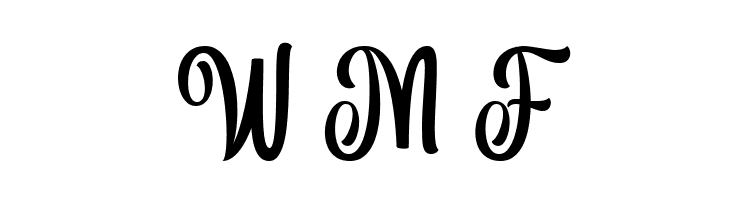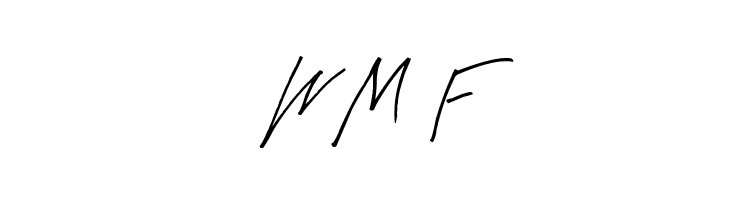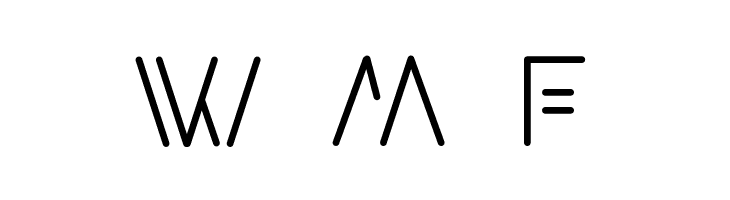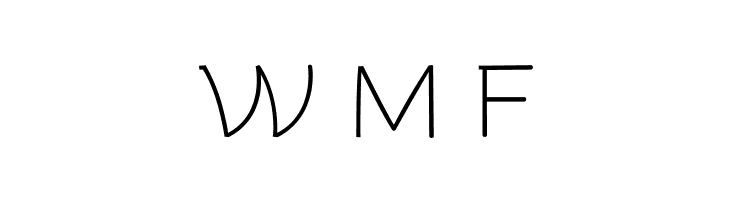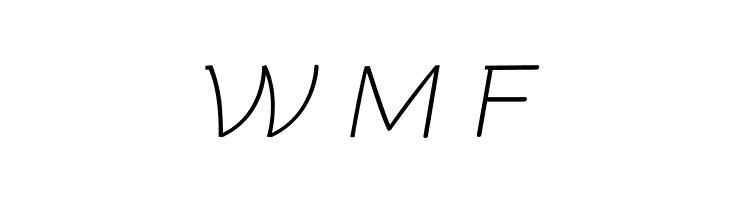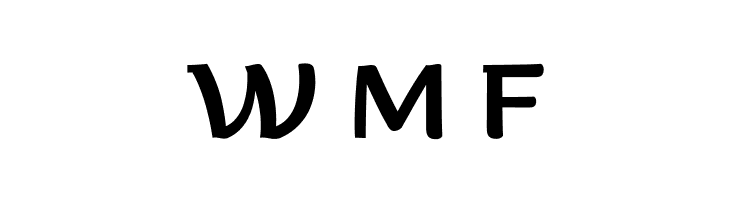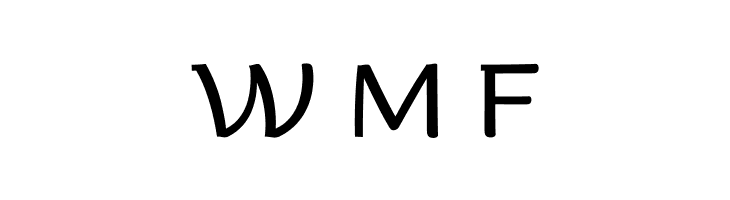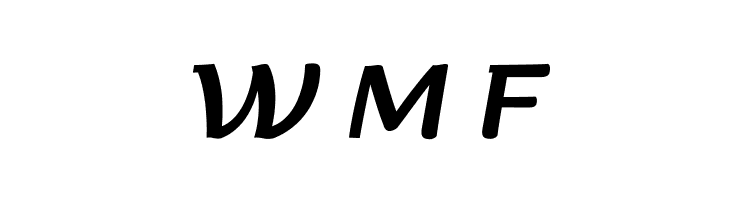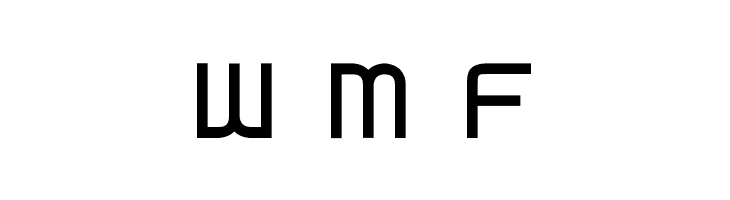
A dynamic italic font with smooth, flowing lines and a modern aesthetic.
A clean, modern font with smooth curves and consistent stroke width.
A light, elegant italic font with smooth curves and a modern feel.
A bold, modern font with a playful yet professional style.
A sleek, modern font with thin lines and a minimalist design.
A sleek, thin italic font with a refined and elegant style.
A modern, geometric font with a futuristic and sleek design.
A modern geometric font with clean lines and abstract shapes.
A bold, decorative script font with elegant curves and flourishes.